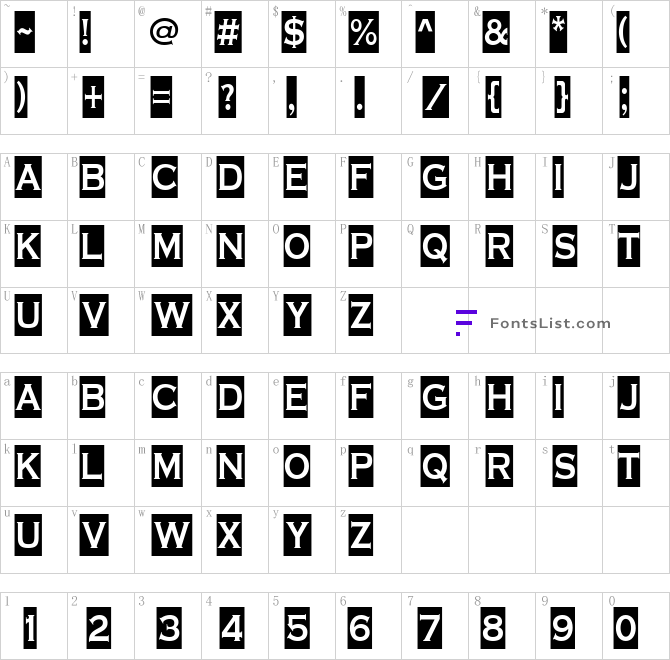
- Font Name:a_CopperGothSl
a_CopperGothSl.ttf is a very beautiful artistic font, a_CopperGothSl.ttf is widely used in the design and printing of various books and pictures,a_CopperGothSl.ttf has a strong visual impact,a_CopperGothSl.ttf is a commonly used font in newspapers, magazines and books, and is used in posters, e-commerce Poster design, store design, logo design, font design and other fields.a_CopperGothSl.